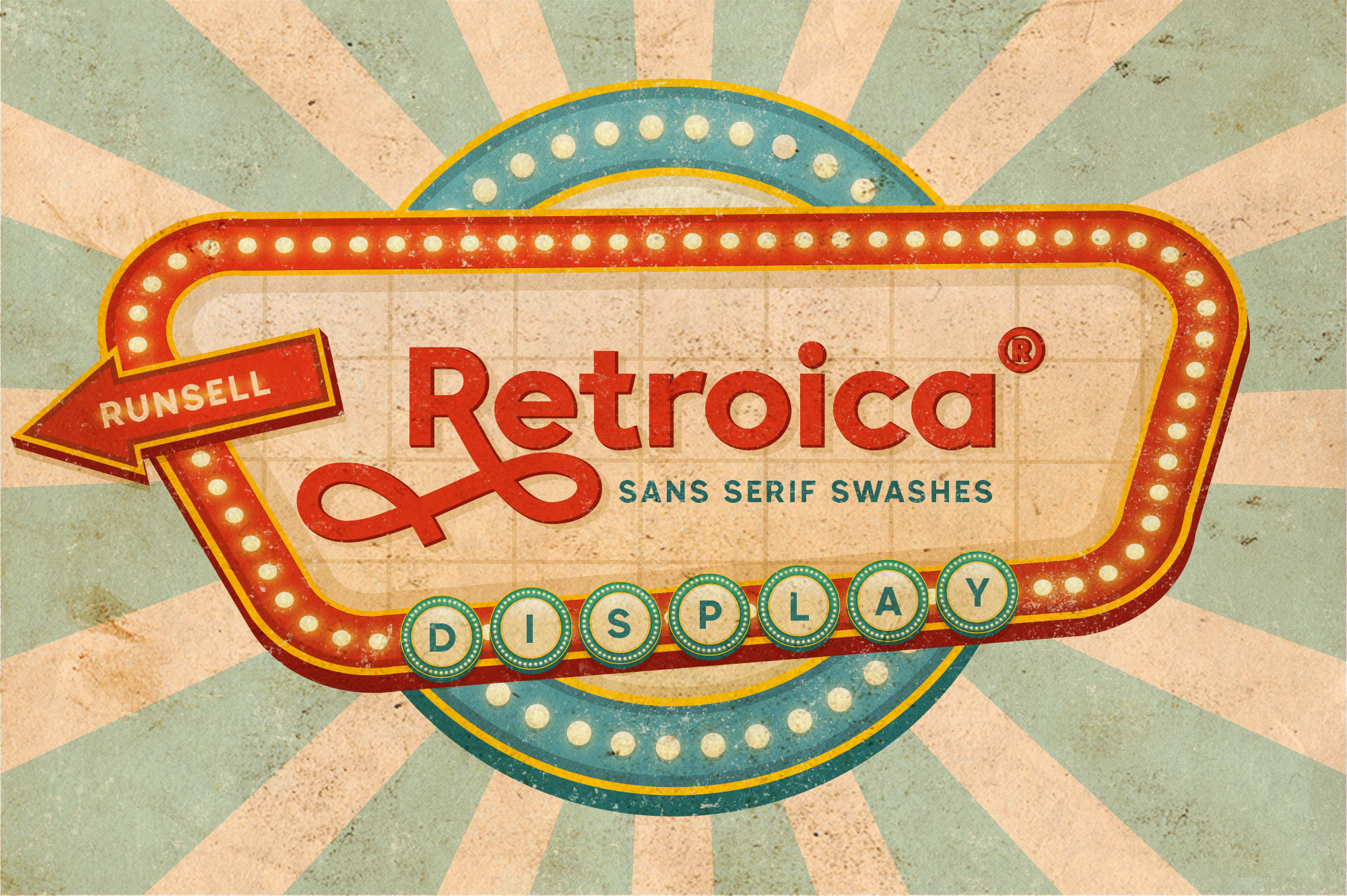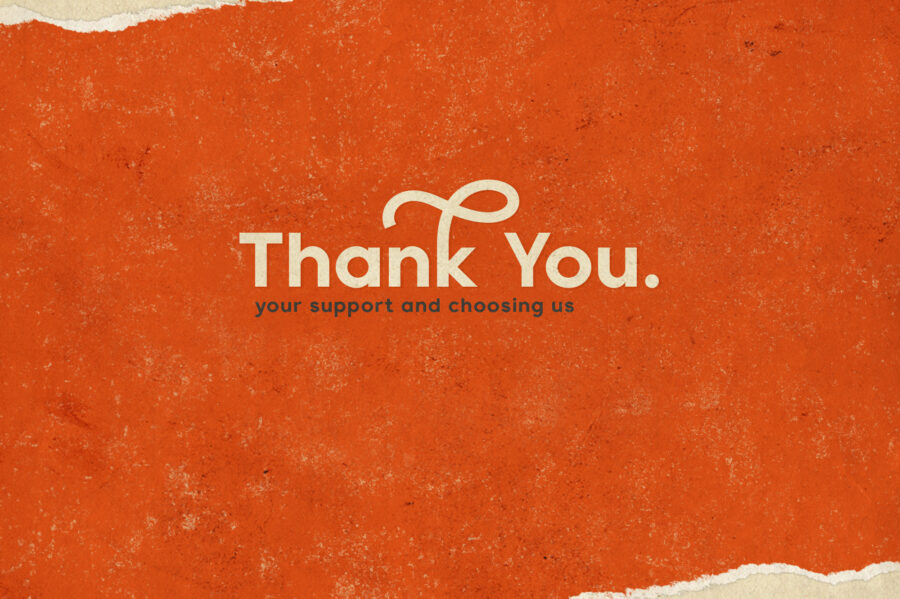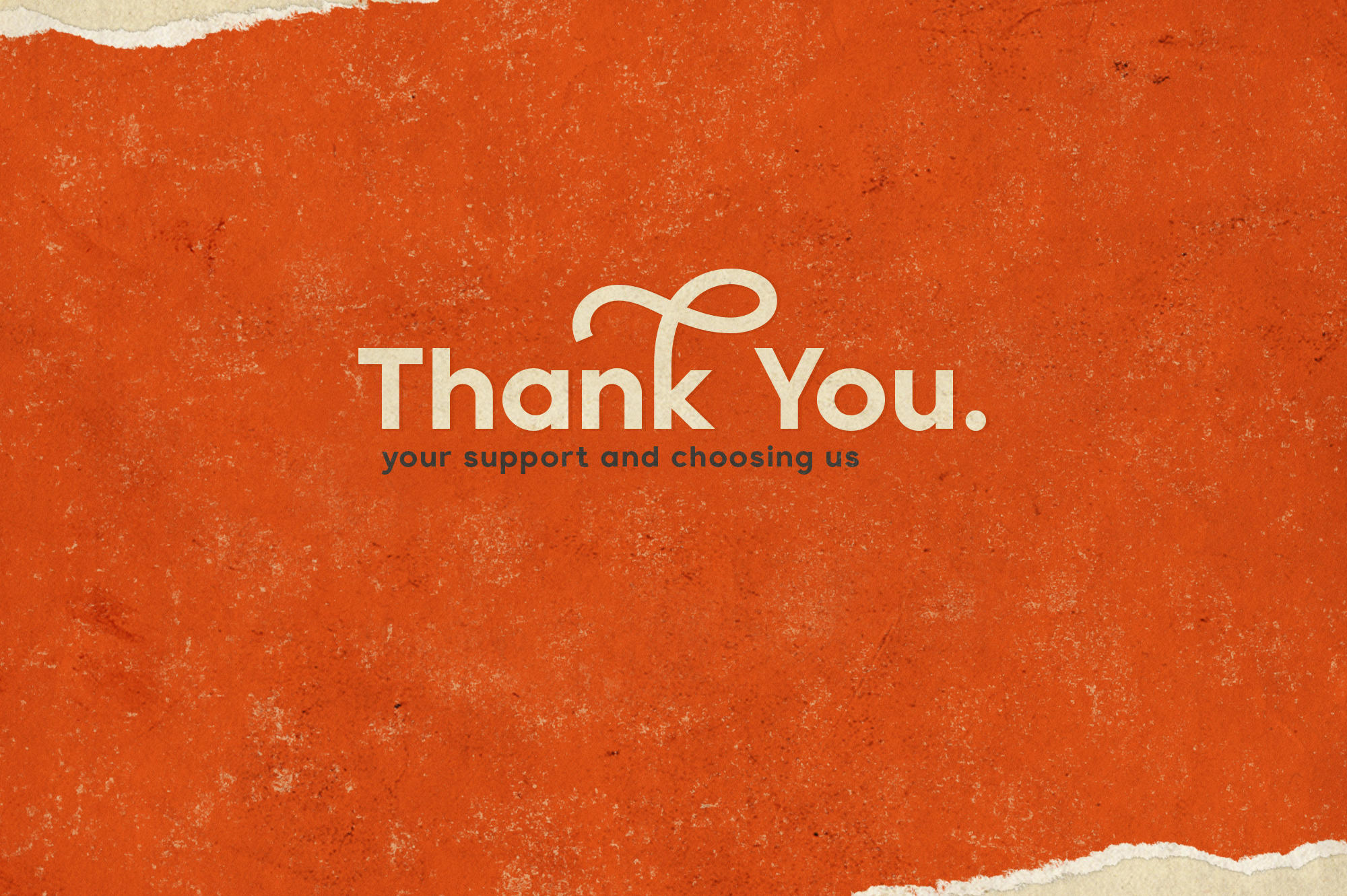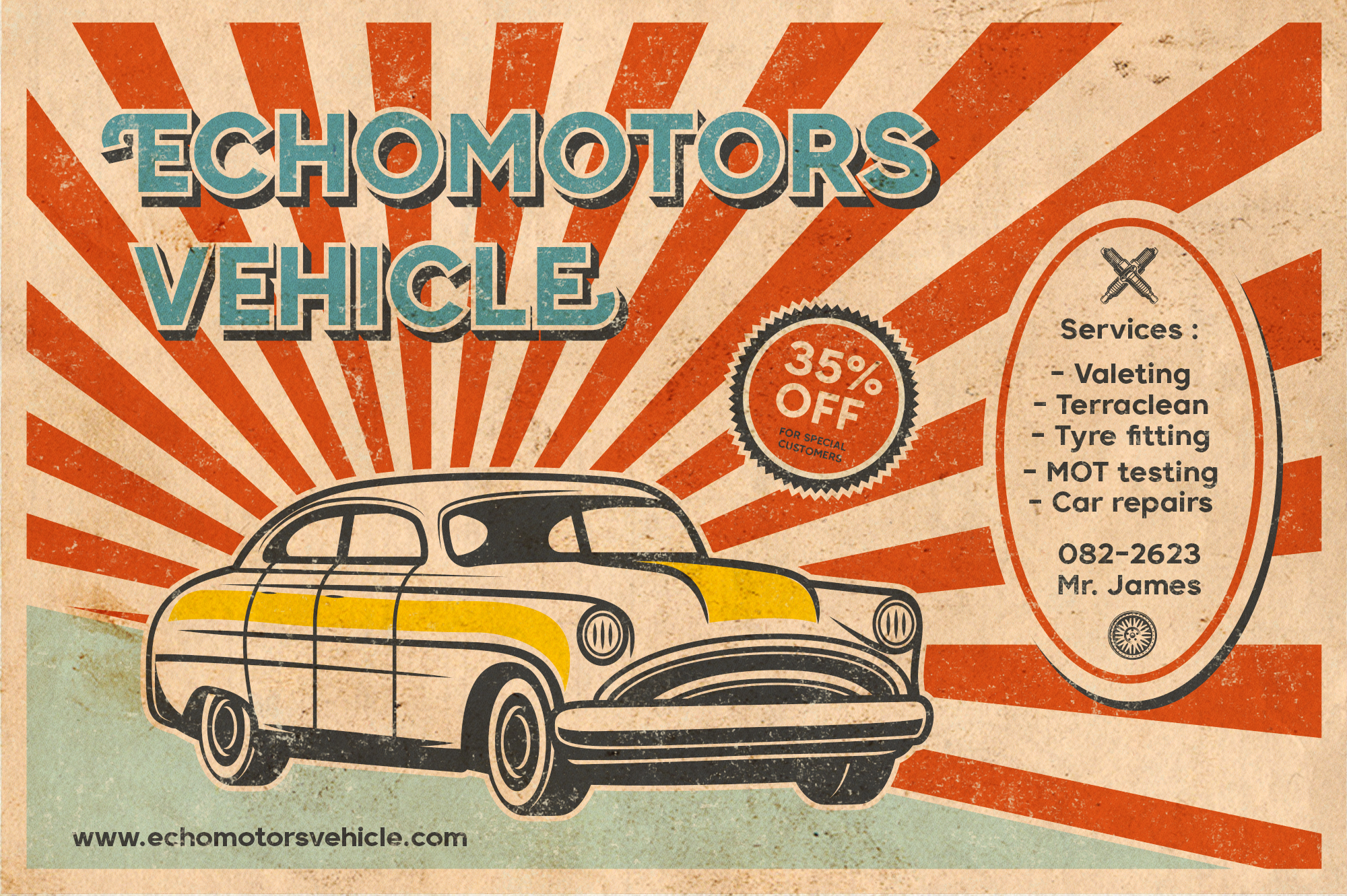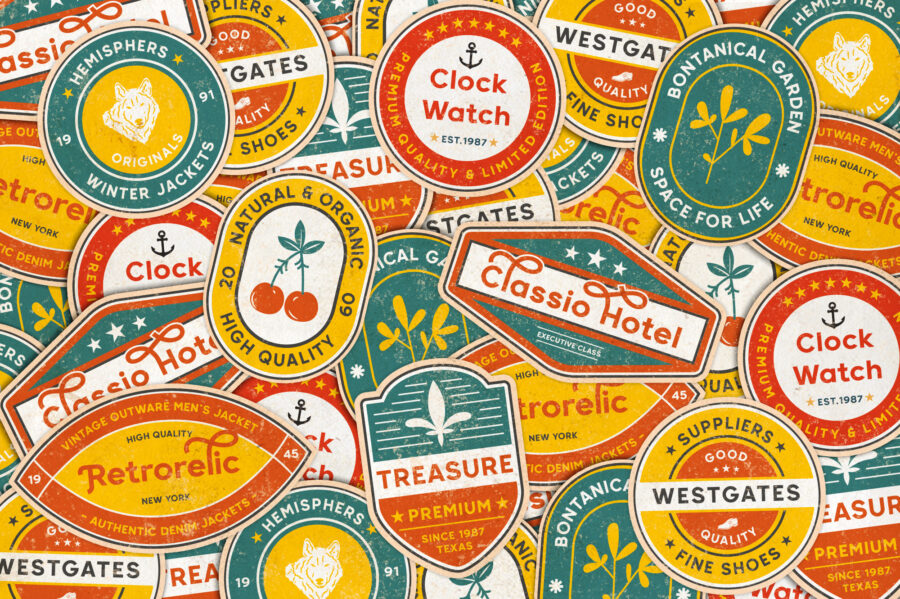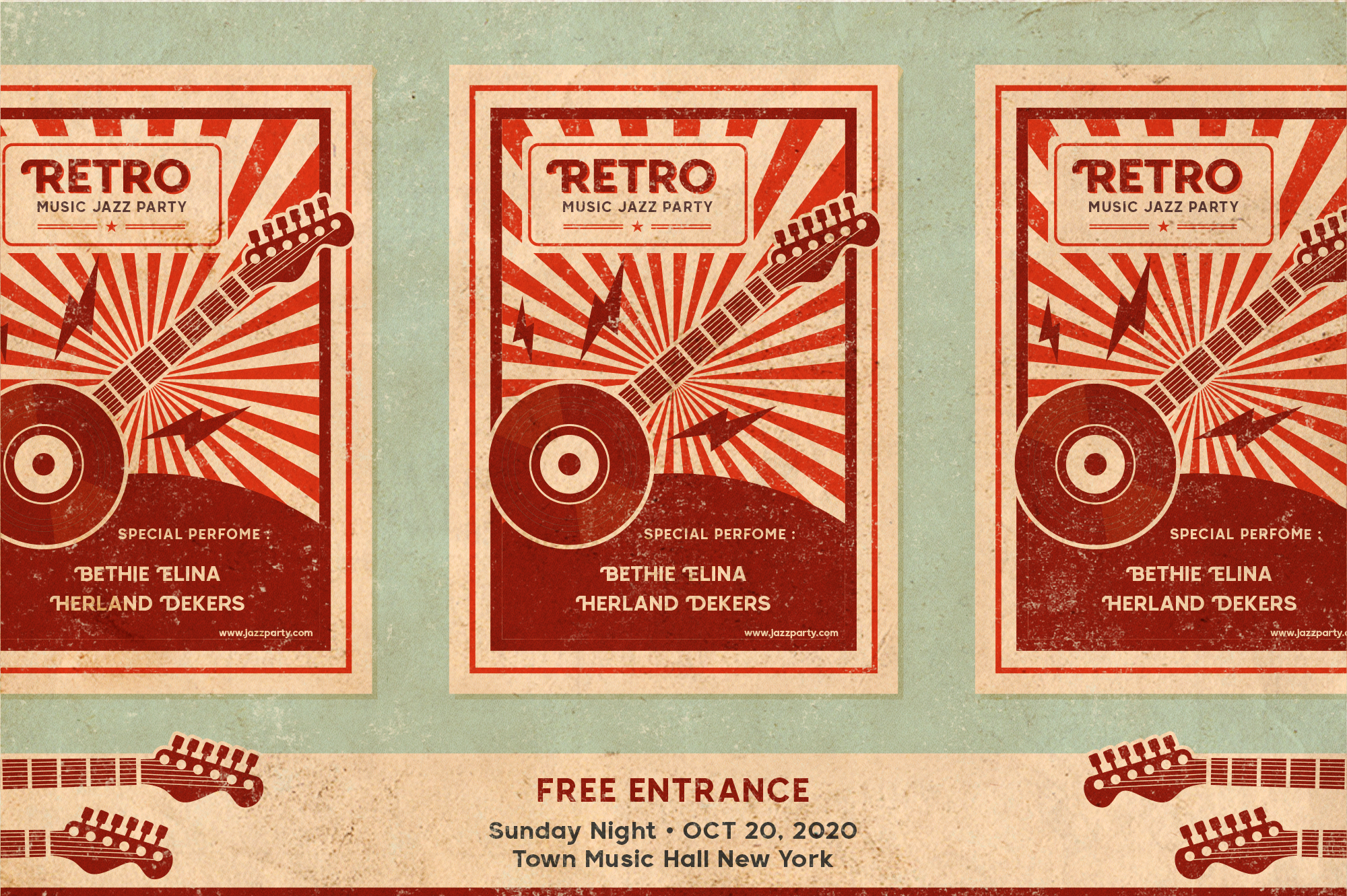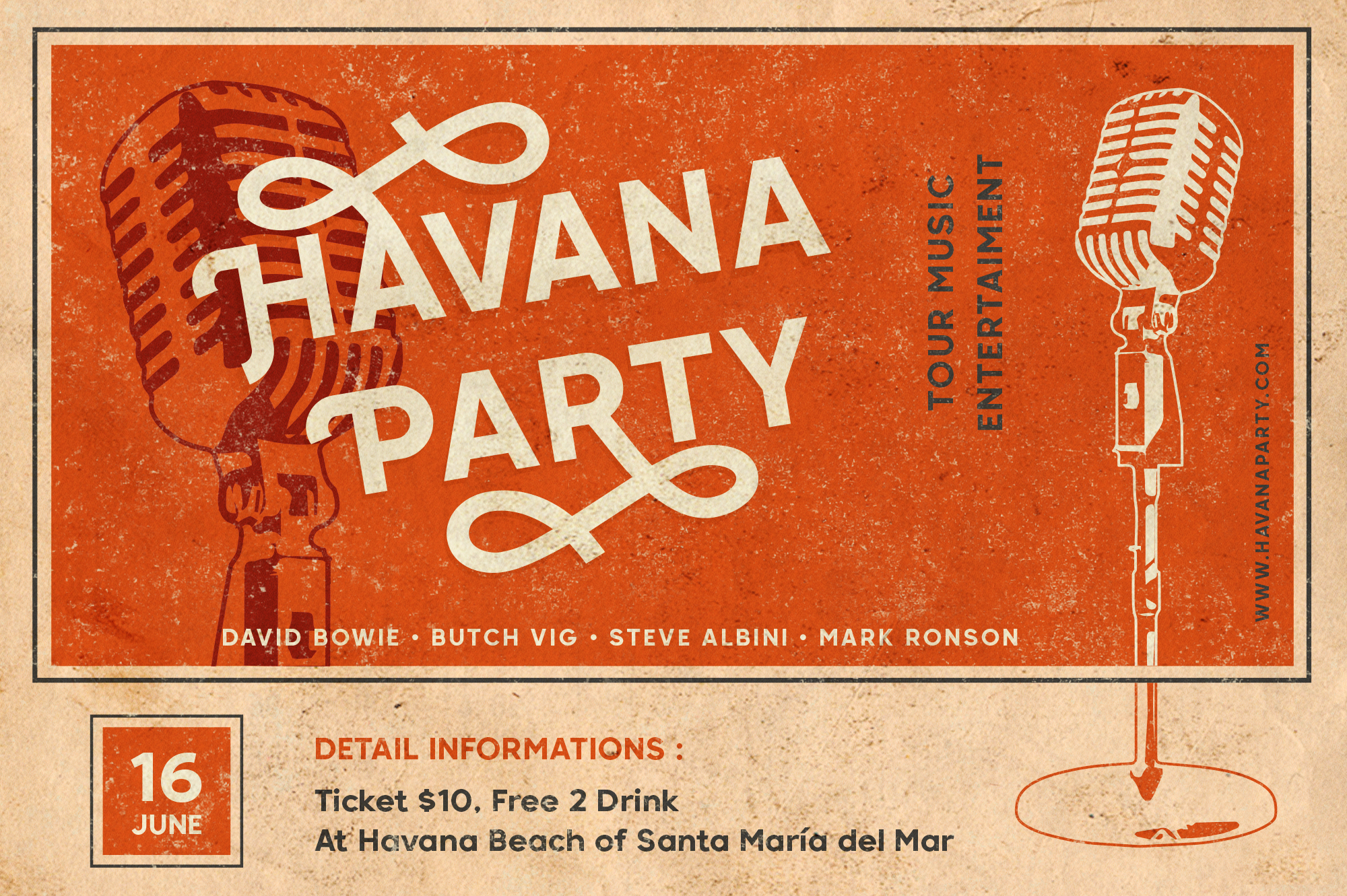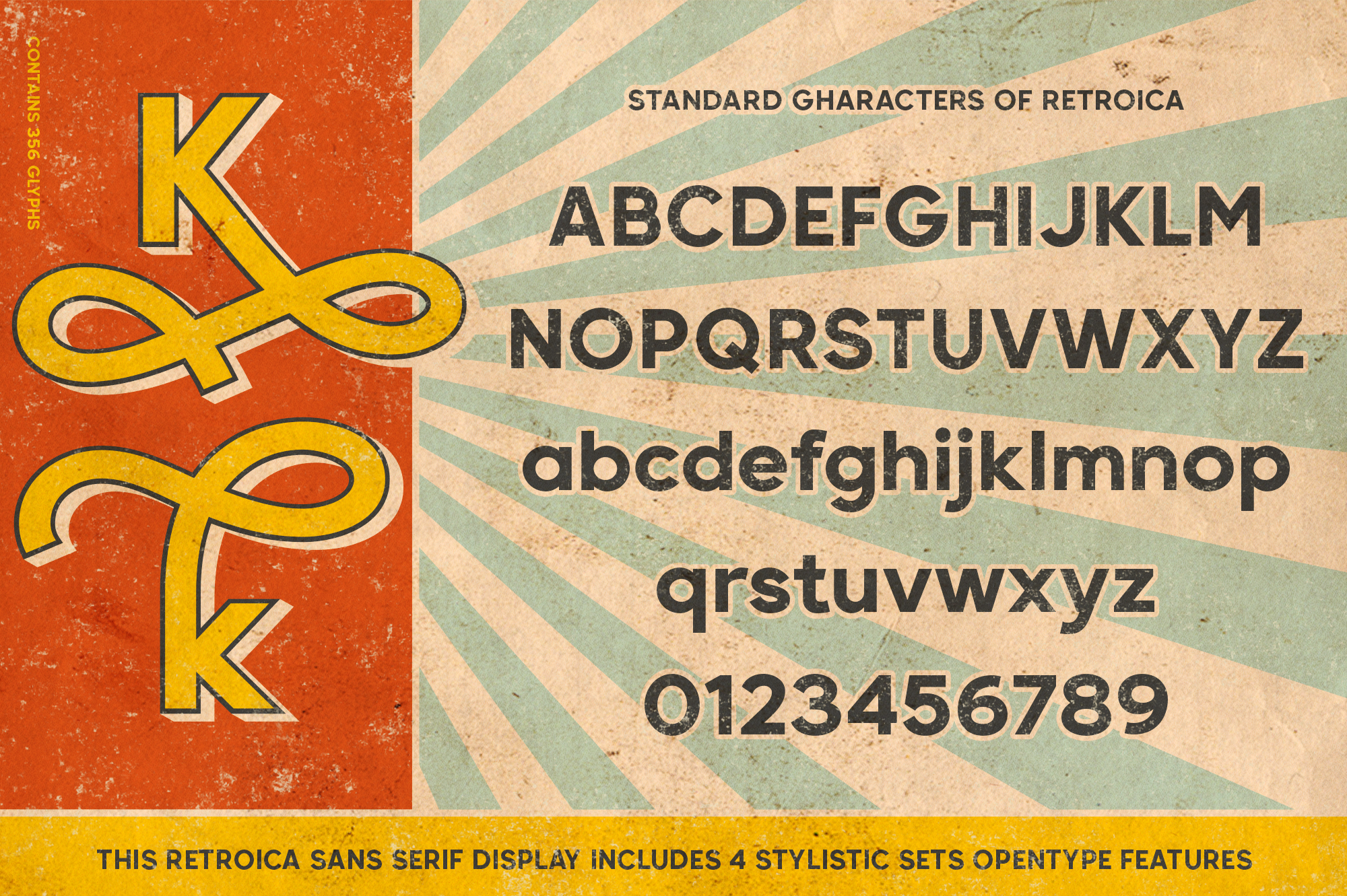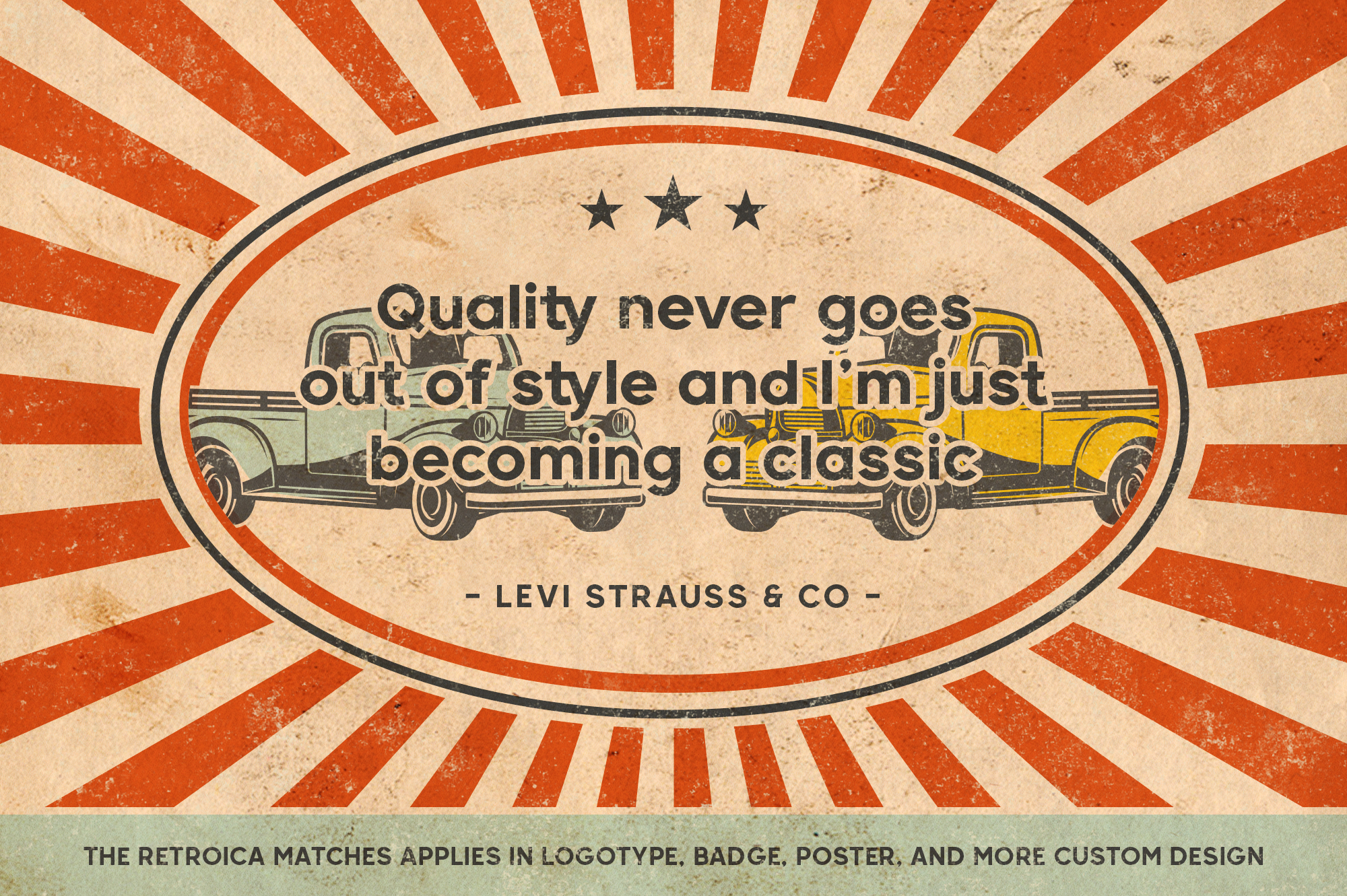
Retroica is a bold and vibrant sans serif font that combines vintage flair with playful swashes. Inspired by old-school signage, diner aesthetics, and retro advertisements, Retroica offers a nostalgic experience that brings warmth and personality to your typography. With clean, solid letterforms and expressive ligatures, it’s the perfect fusion of classic charm and modern usability.
This display typeface features over 350 glyphs, including stylistic alternates and decorative swashes that can easily elevate branding, packaging, logos, and poster designs. Whether you’re creating a retro-themed label or a bold jazz party flyer, Retroica adds a timeless visual punch that feels both familiar and fresh.
Retroica